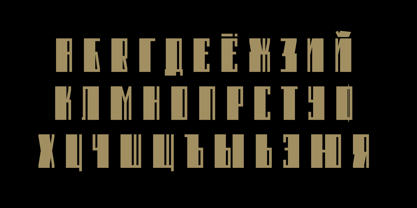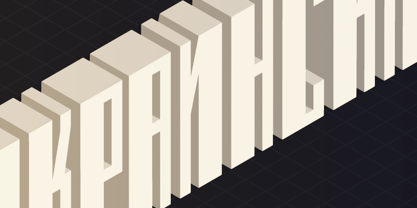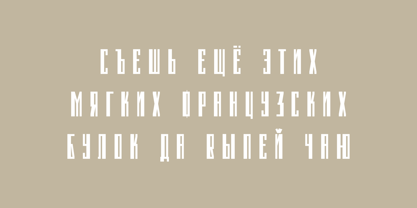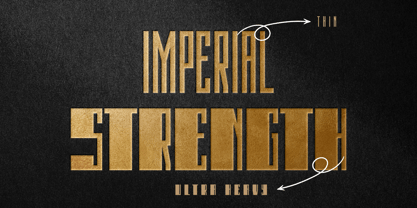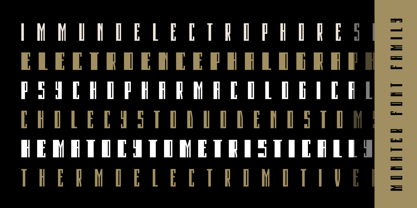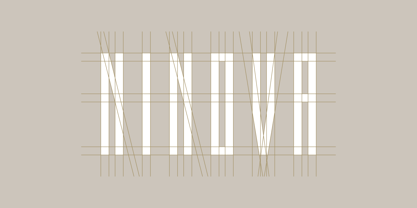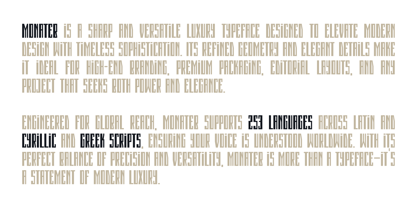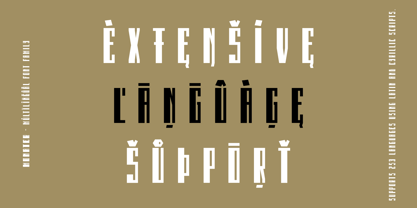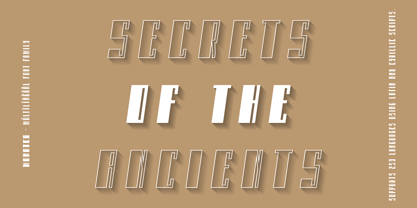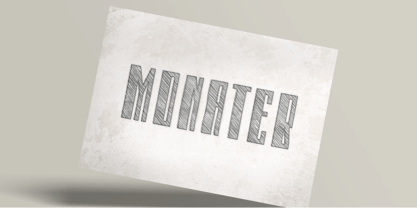
Monateb
by AlperCakici
The Monateb Font Family was designed by Alper Çakıcı and published by AlperCakici. Monateb contains 44 styles and family package options. More about this family
Monateb is a sleek and elegant typeface crafted with geometric precision and luxurious curves. The new update expands Monateb into 44 instances, including variants for every weight, offering designers a unique toolkit for branding, editorial design, packaging, and creative digital projects. Balancing modern minimalism with timeless sophistication, Monateb is ideal for high-end branding, fashion editorials, premium magazines, and corporate identities that demand both style and readability. It supports Extended Latin & Cyrillic: Built for 253 languages, ensuring global reach.